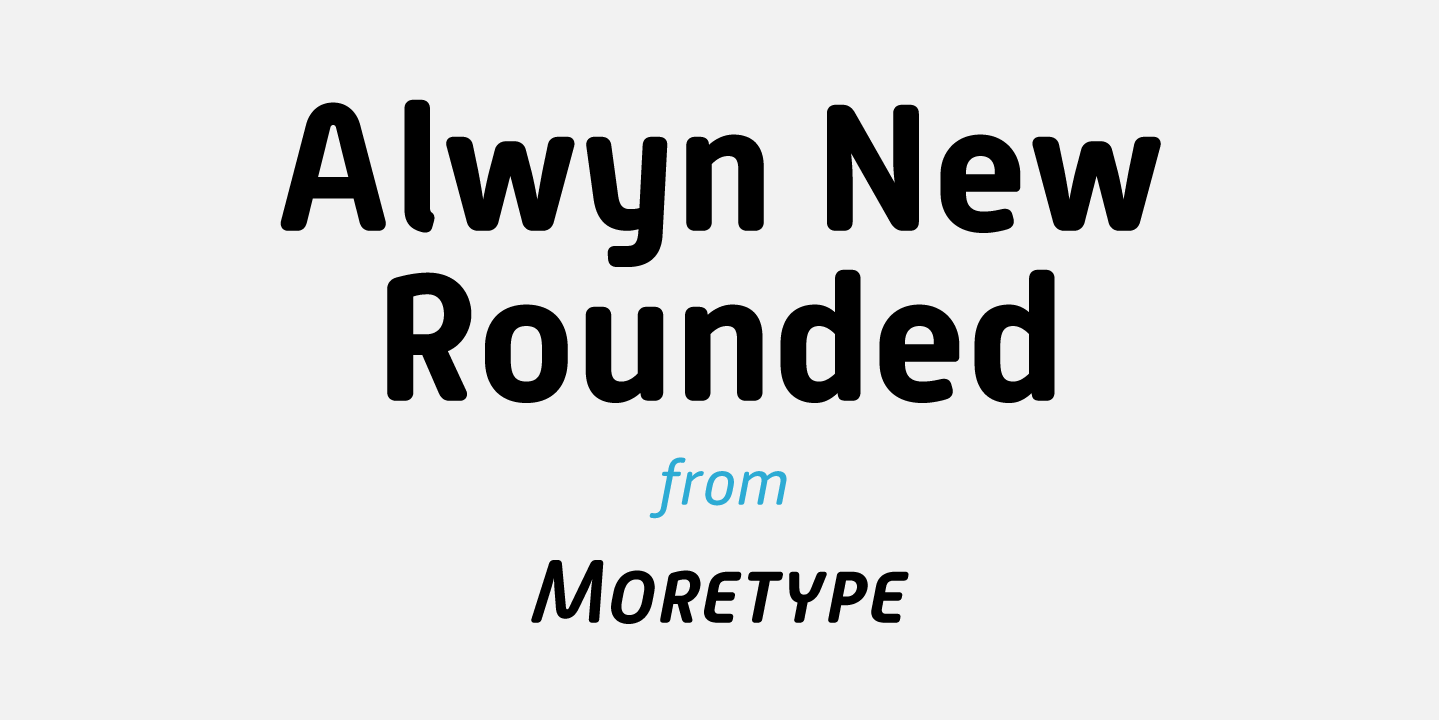
Alwyn New Rounded Font is perfect for friendly corporate branding, children's educational materials, healthcare communications, family-oriented businesses, approachable tech startups, community organization logos, soft product packaging, and welcoming service industry designs. This gentle typeface excels in applications requiring warmth, accessibility, and non-threatening visual appeal that creates instant comfort and trust with diverse audiences.
What makes Alwyn New Rounded Font exciting is its perfect balance of professional credibility and approachable warmth achieved through softly rounded letterforms that eliminate visual tension. The font features carefully crafted curves and gentle edges that create immediate psychological comfort while maintaining excellent readability and professional quality for brands seeking to establish trustworthy, accessible market presence without sacrificing business credibility.
The Alwyn New Rounded Font family includes comprehensive weight options from light to bold, plus soft italic variations, offering designers complete tools for creating welcoming brand systems. The family provides consistent rounded aesthetic with strategic weight progression for effective hierarchy while maintaining the gentle character that defines contemporary friendly branding and accessible communication approaches.
Alwyn New Rounded Font Free Download represents an outstanding choice for organizations seeking typography that combines professional quality with genuine human warmth and accessibility. Whether you're developing healthcare branding, educational materials, family service communications, or community-focused marketing campaigns, this font provides the gentle character needed for authentic trust-building and approachable brand positioning.
The thoughtfully rounded letterforms of Alwyn New Rounded Font ensure optimal legibility across all platforms while maximizing welcoming appeal and psychological comfort, making it ideal for user-friendly interfaces, accessible web design, and inclusive communication materials. This versatile typeface combines gentle warmth with contemporary technical standards for outstanding performance in modern design environments requiring authentic human connection and accessible brand communication.